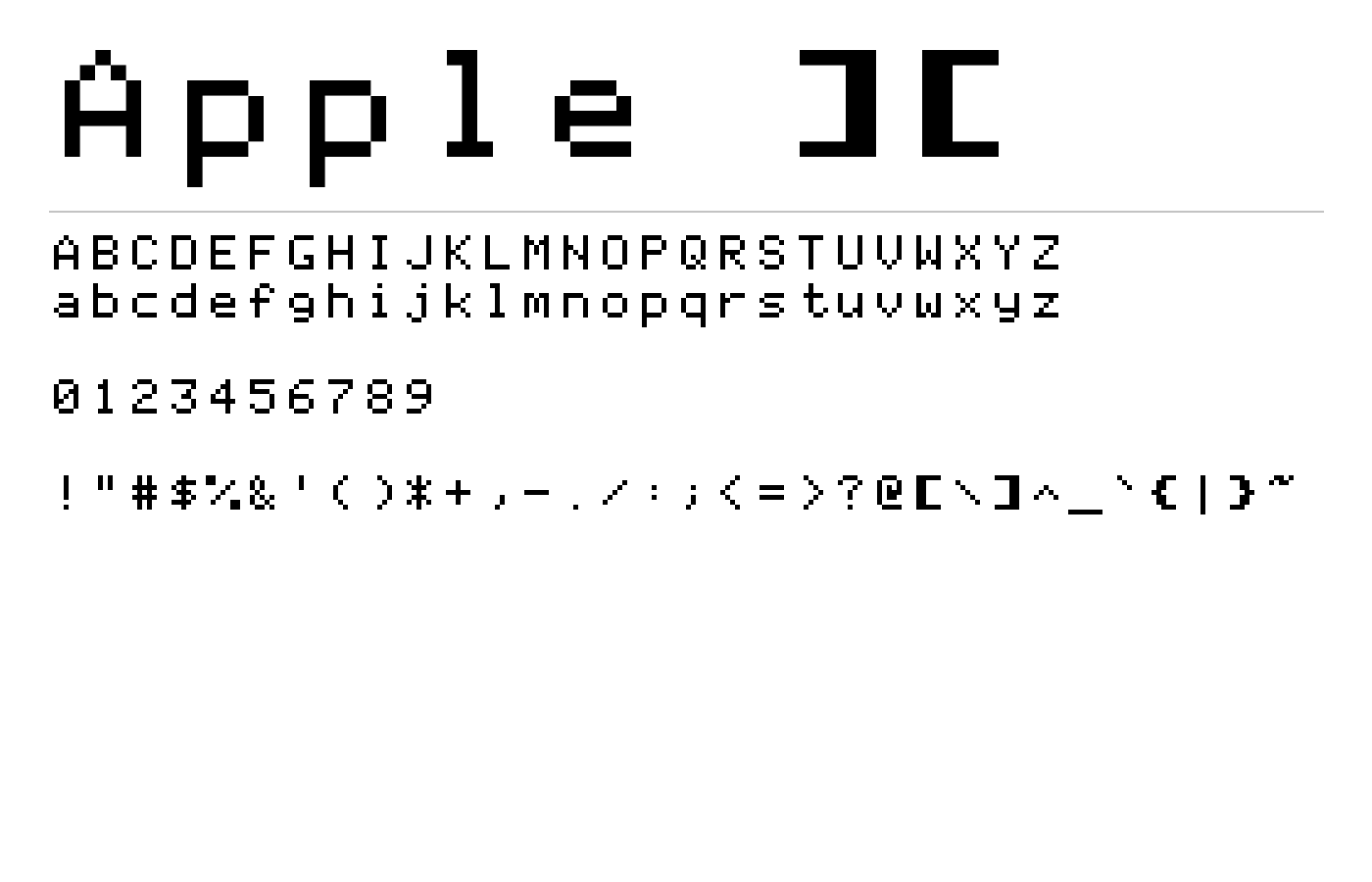
Apple ][ Font is a pixel-based monospaced sans serif typeface that carries a distinctive retro digital feel reminiscent of early computer screens. Its blocky, low-resolution design gives it a nostalgic, vintage tech vibe, making it ideal for retro-themed projects, tech branding, and digital art that calls for an authentic 1980s computer aesthetic. This font works well for headlines, logos, and stylized displays where a classic computer look is desired.
Apple ][ Font
About Apple ][ Font